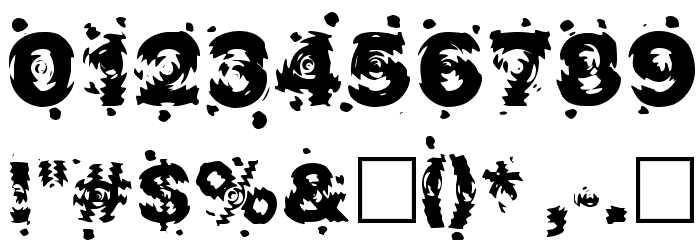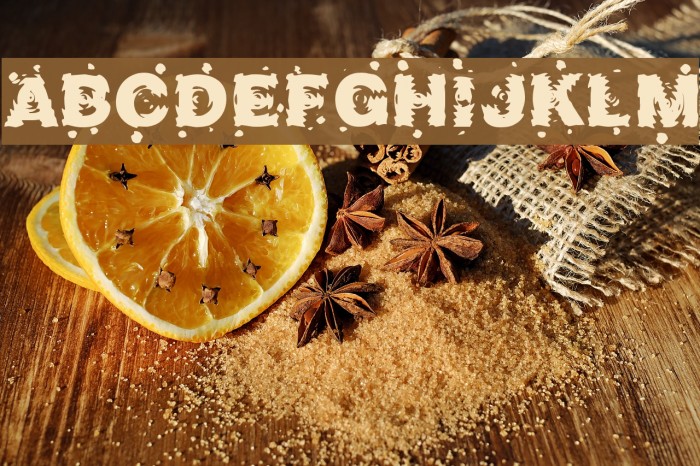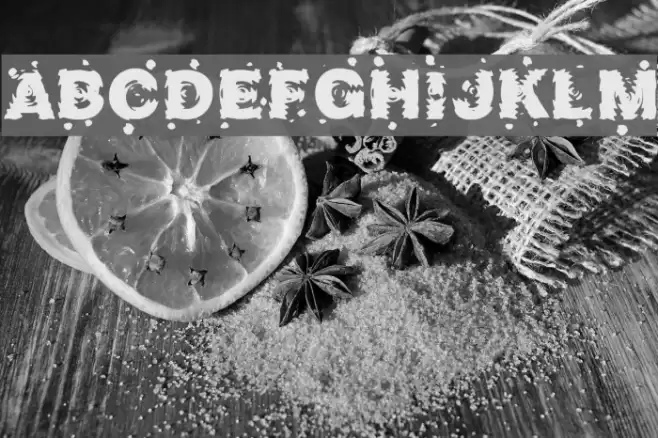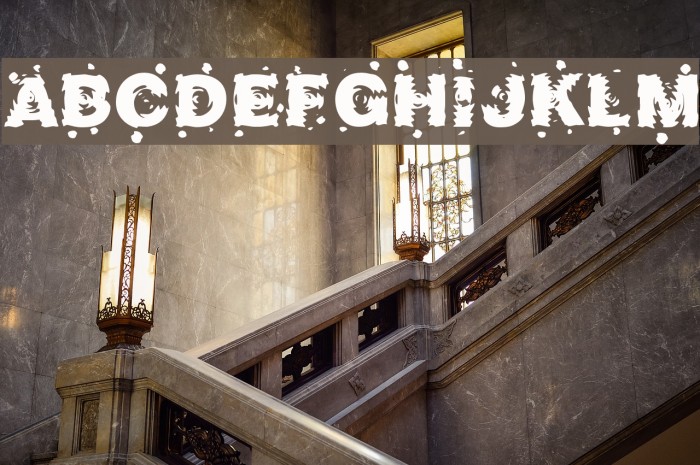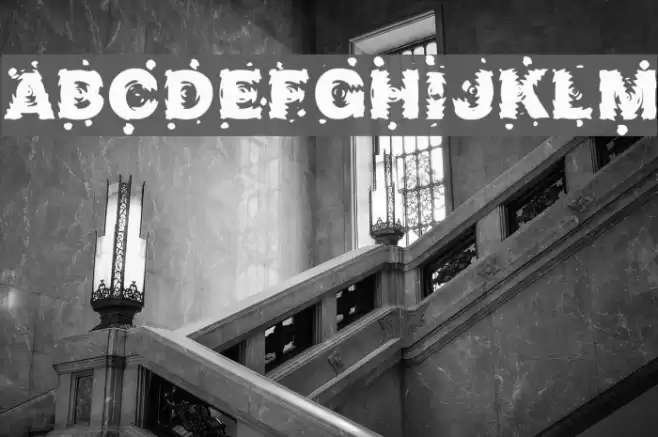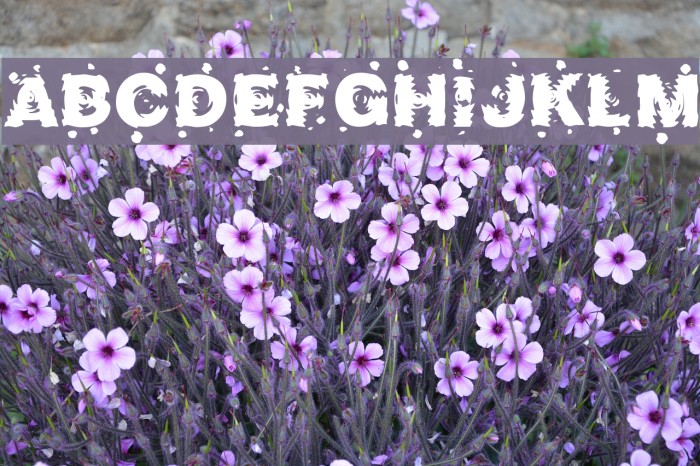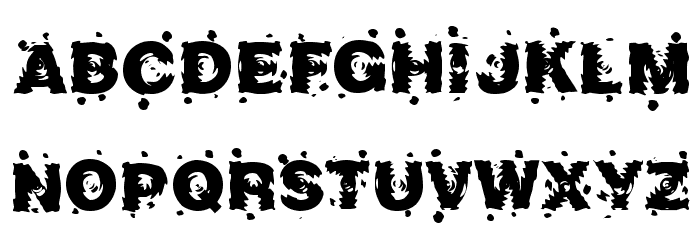
Marusya Font
Marusya Description
This font features a bold, decorative style with a unique, distressed appearance. The characters are heavily stylized with irregular edges and splatter-like elements, giving them a chaotic yet artistic look. The uppercase and lowercase letters maintain a consistent design, with each character appearing as if it has been splashed with ink or paint. The numbers and special characters follow the same aesthetic, ensuring a cohesive look across all glyphs. This font is ideal for projects that require a bold, eye-catching design with a touch of grunge or artistic flair.
| Proposed Projects | Ideal for album covers, posters, graffiti art, and edgy branding projects. |